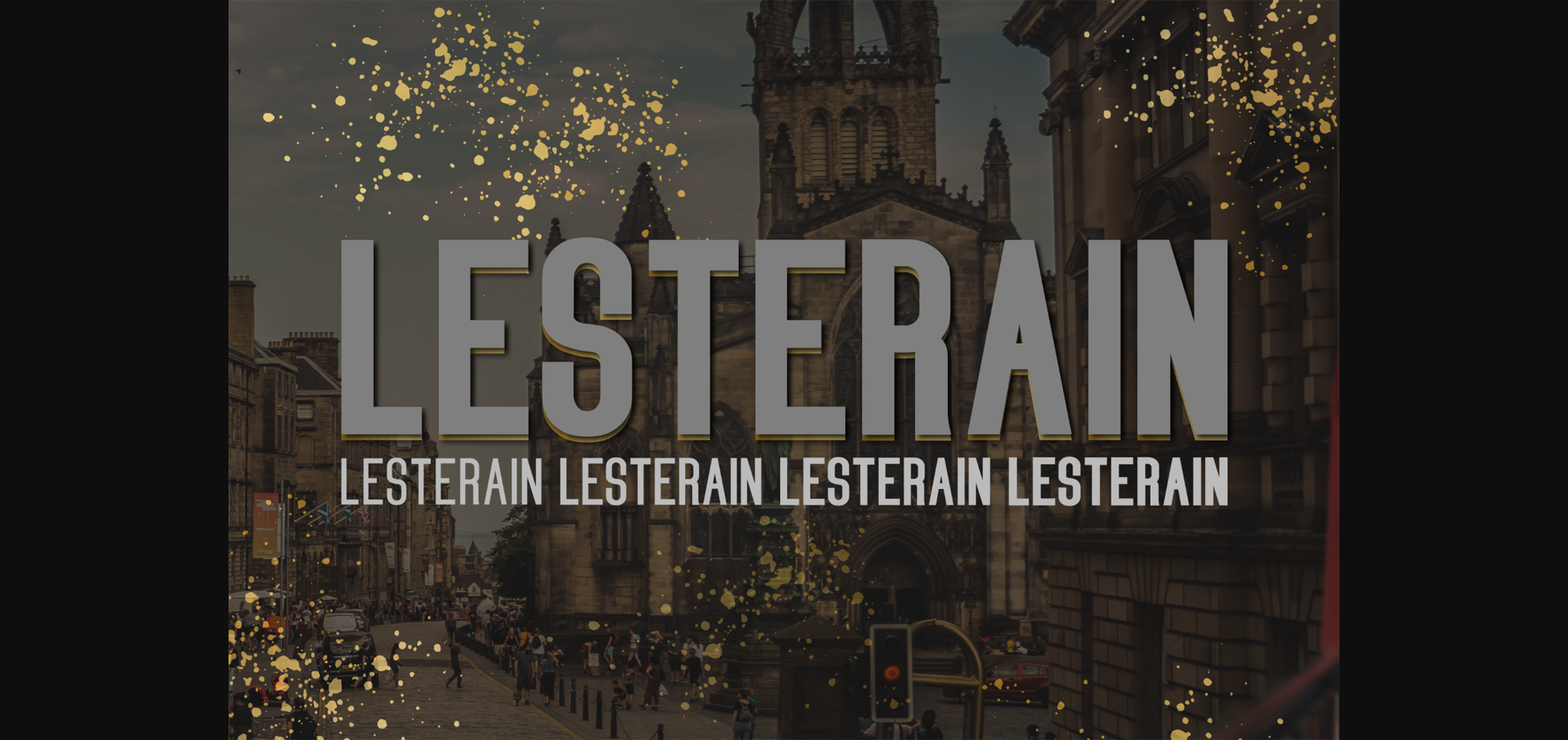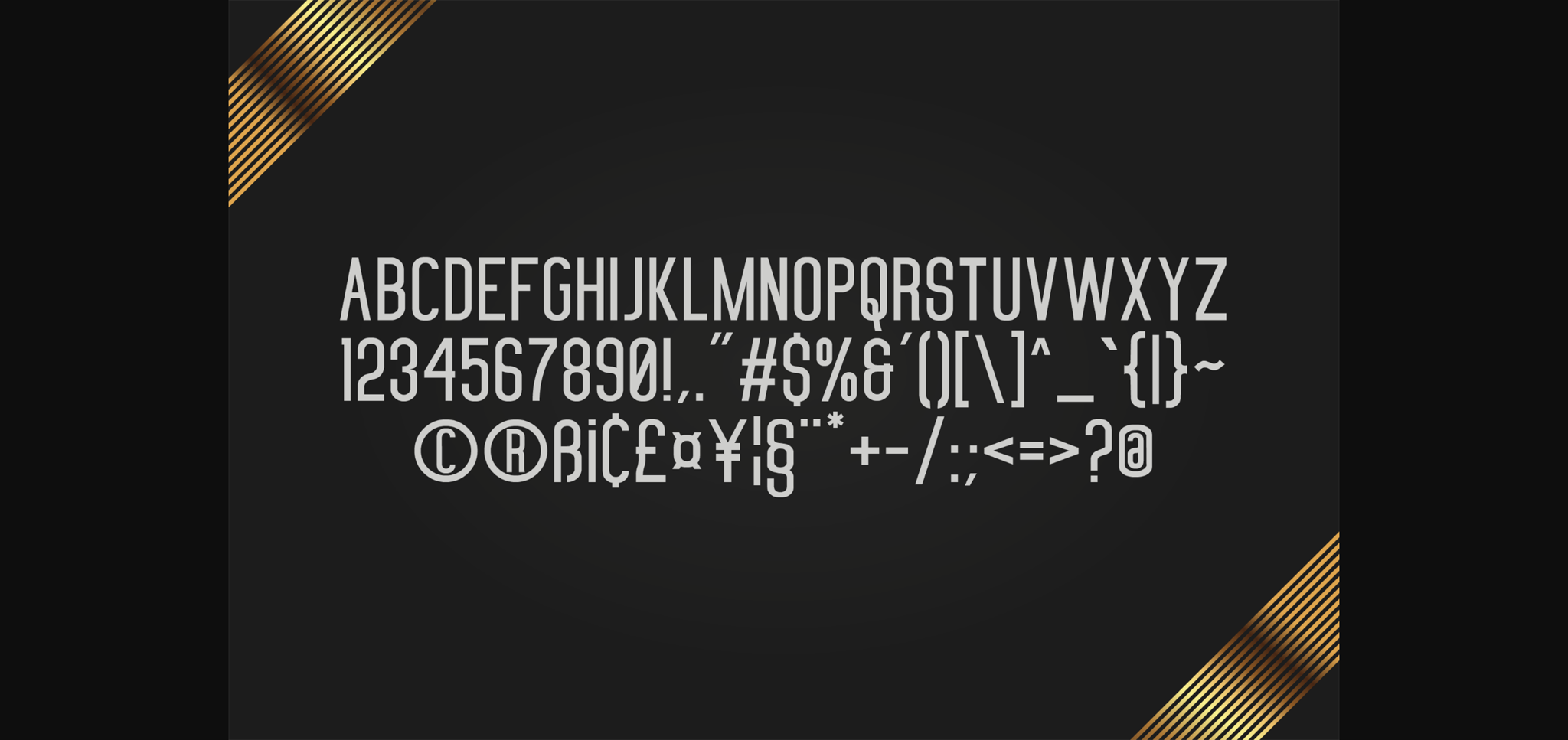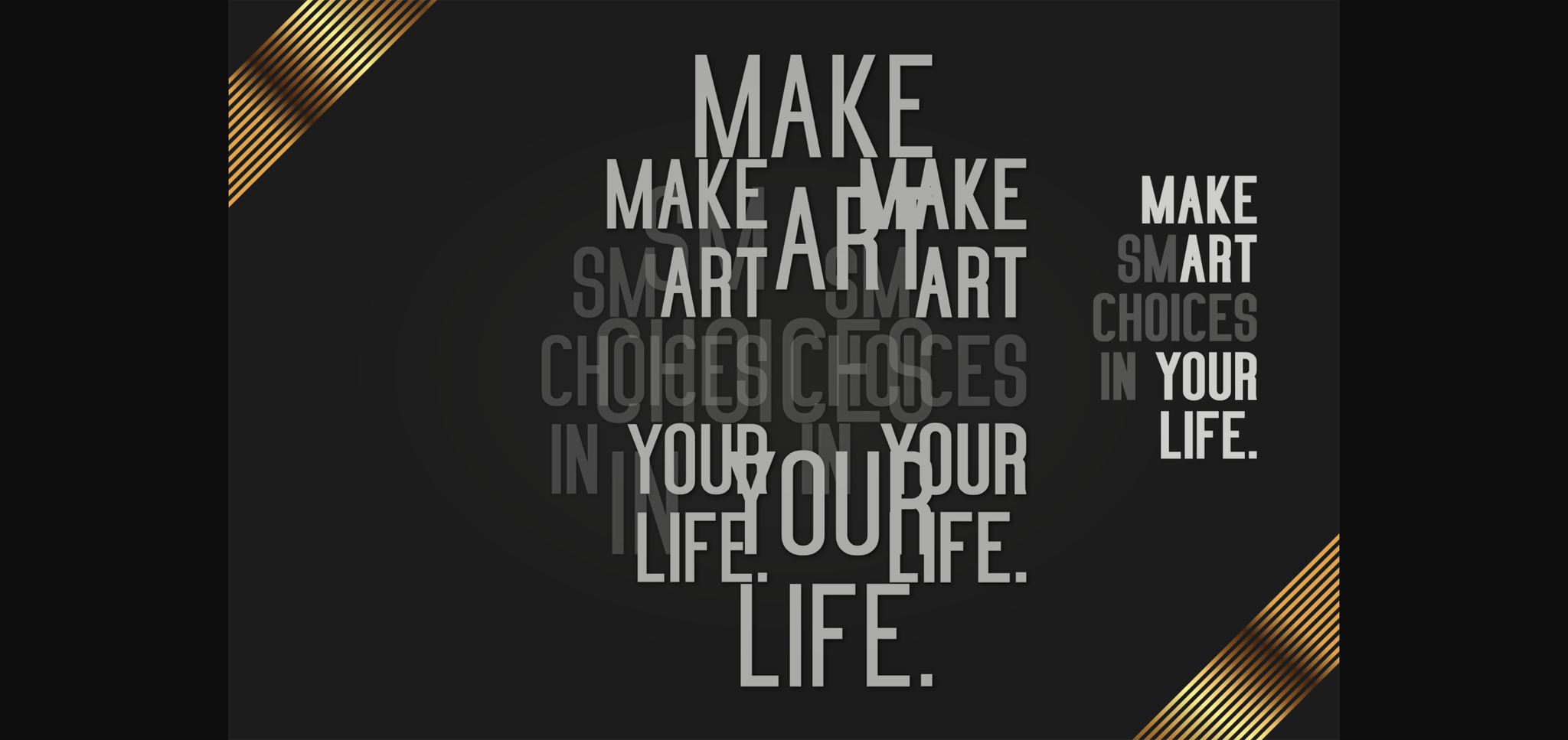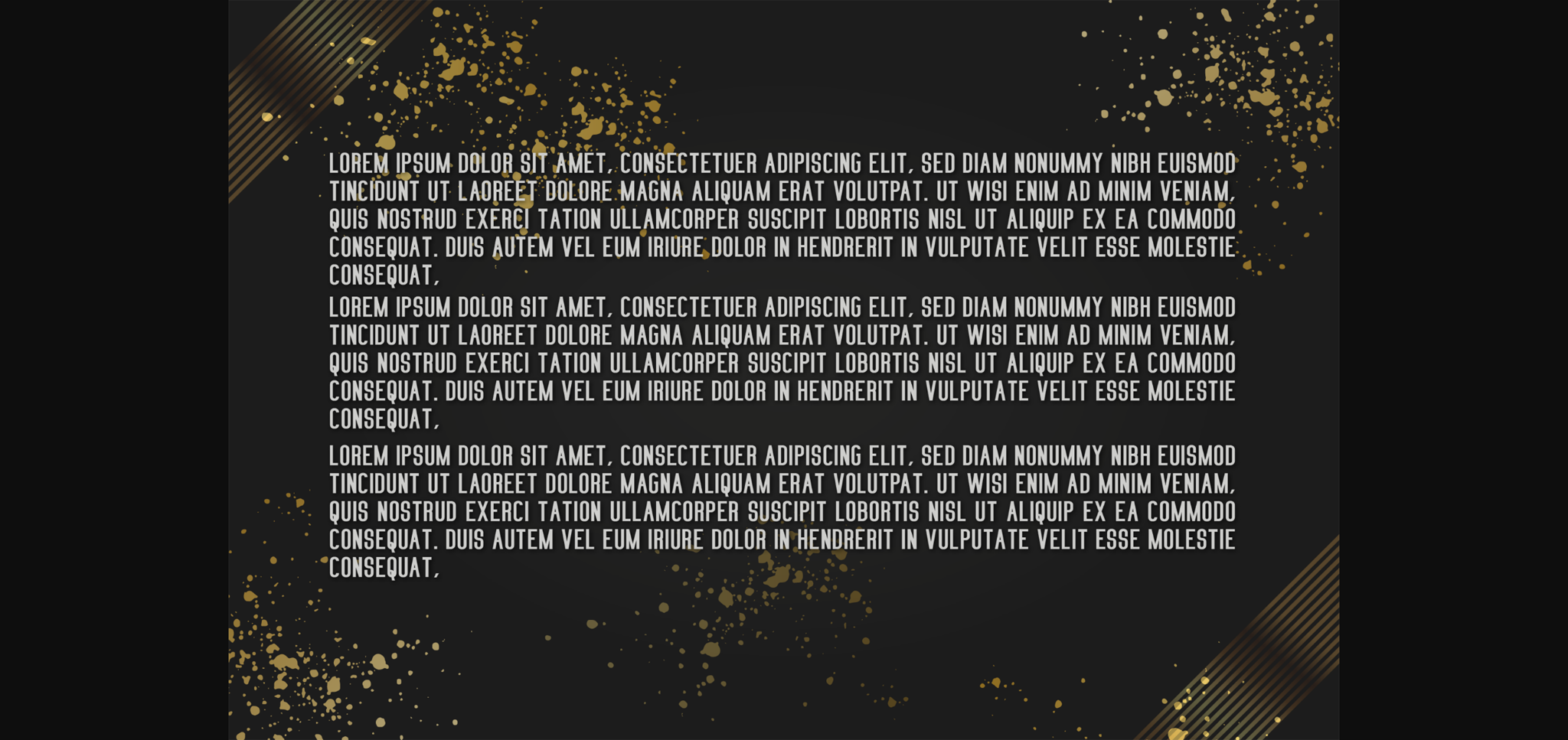
HomeSans Serif FontsLesterain Family Font Sans Serif Fonts Lesterain Family Font FacebookTwitterPinterestWhatsApp 1 of 6 ... Lesterain Family Font Poster 2... Lesterain Family Font Poster 3... Lesterain Family Font Poster 4... Lesterain Family Font Poster 5... Lesterain Family Font Poster 6... About Lesterain Family Font Lesterain Family is a clean and simple vintage sans serif font family. Its smooth edges simulate vintage printing style! DOWNLOAD NOW 164 0 People also explored Brouklyn Signature Font Chubby Font Profumo Fathiyya Font Sewele Font Doggy Font Sweet Heart Style Font Oredo Font Near Font Kinantey Font Gelato Font Kagura Font TagsLesterain Family Font Previous articleMooge FontNext articleColonia Deco Font LEAVE A REPLY Cancel reply Comment: Please enter your comment! Name:* Please enter your name here Email:* You have entered an incorrect email address! Please enter your email address here Website: Save my name, email, and website in this browser for the next time I comment. Unlock Endless Creativity with the FREE September Clipart Huge Bundle (Valued at $700!) Personal Use Free Twisty Girlz Personal Use Free Read more Trio Personal Use Free Read more Scoothlane Personal Use Free Read more Hashira Mt Personal Use Free Read more BLOG Using Fonts in Digital Marketing: Tips to Strengthen Your Brand Identity In the realm of digital marketing, every visual element plays a crucial role in shaping a brand's identity, and fonts are no exception. The... Exploring Font Trends To increase your work productivity, choose the most readable fonts. Free Fonts Risk: Why Free Fonts Can Be Dangerous for Designers